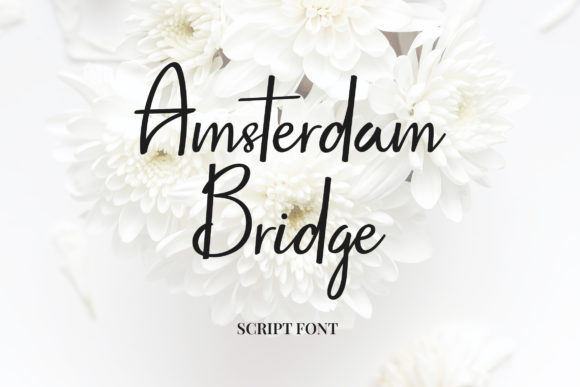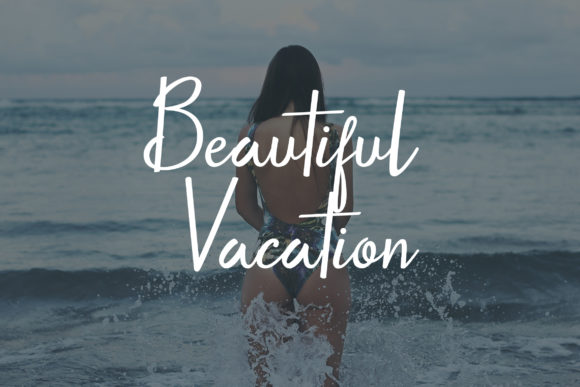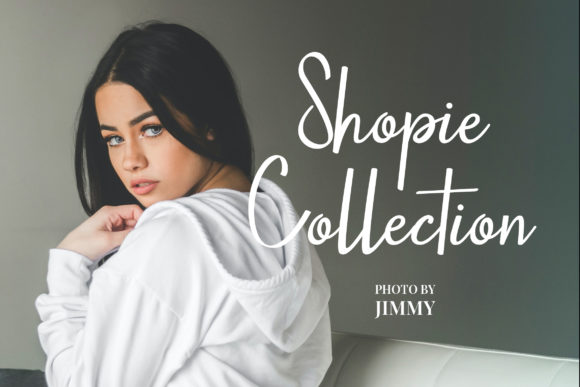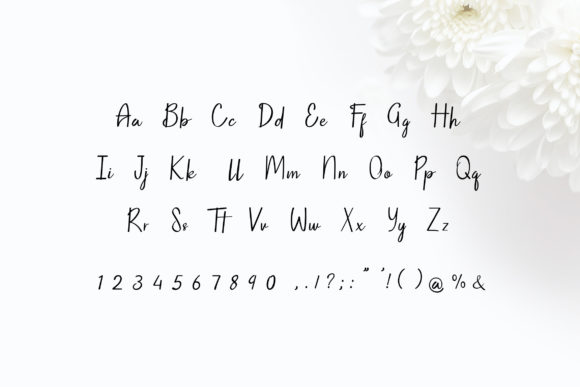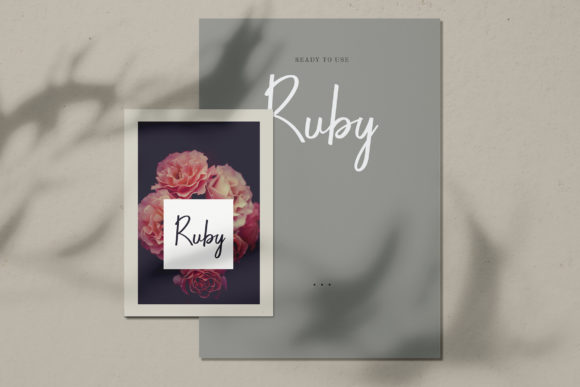
Amsterdam Bridge Font
About Amsterdam Bridge Font
Amsterdam Bridge is a cursive and classic script font. It is defined by smooth curves and is perfect for fashion branding or editorial designs. Add it confidently to your projects, and you will love the results.